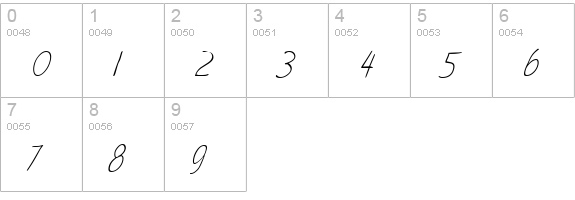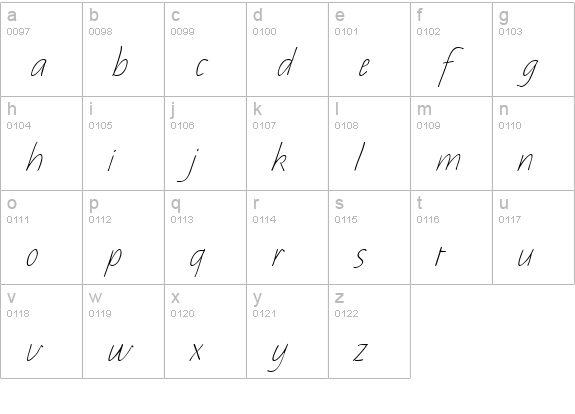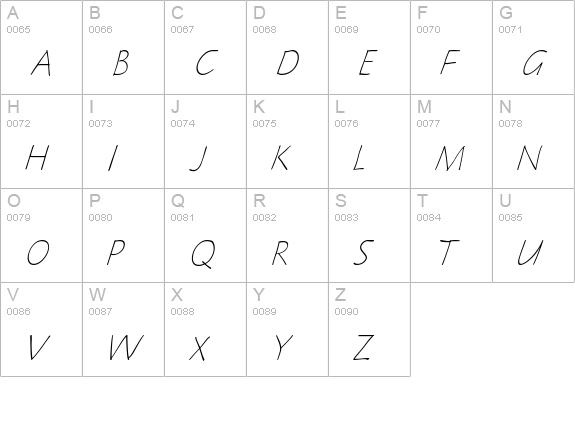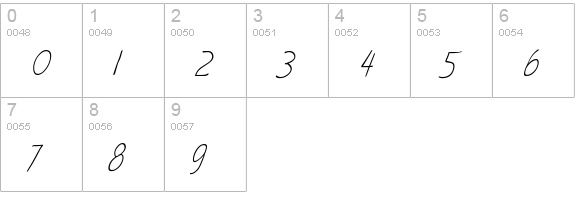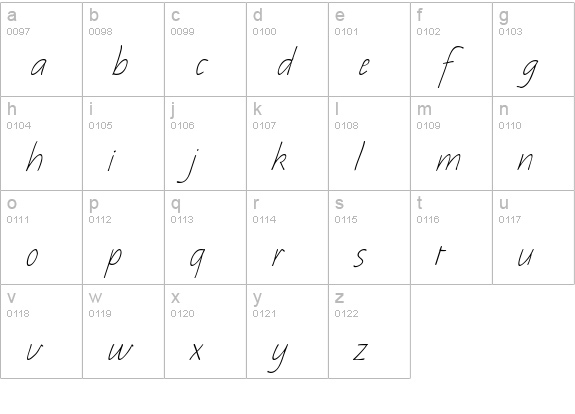
Notehand Italic is a distinctive, italic variant in the Notehand typeface family \xE2\x80\x94 well suited to design and typography projects.
Notehand Italic is a modern and elegant font that exudes sophistication and style. With its sleek and flowing lines, this font is perfect for adding a touch of class to any project or design. The italicized style adds a sense of flair and creativity, making it stand out from the crowd. What sets Notehand Italic apart is that it is not only visually appealing but also versatile, making it suitable for a wide range of applications. Whether you are working on a professional presentation, a creative project, or anything in between, this font will elevate your work to the next level. Best of all, Notehand Italic is available for free download at FontsMarket.com. This means that you can easily access this high-quality font without any cost, allowing you to enhance your projects without breaking the bank. Don't miss out on the opportunity to use Notehand Italic to make a lasting impression with your designs.